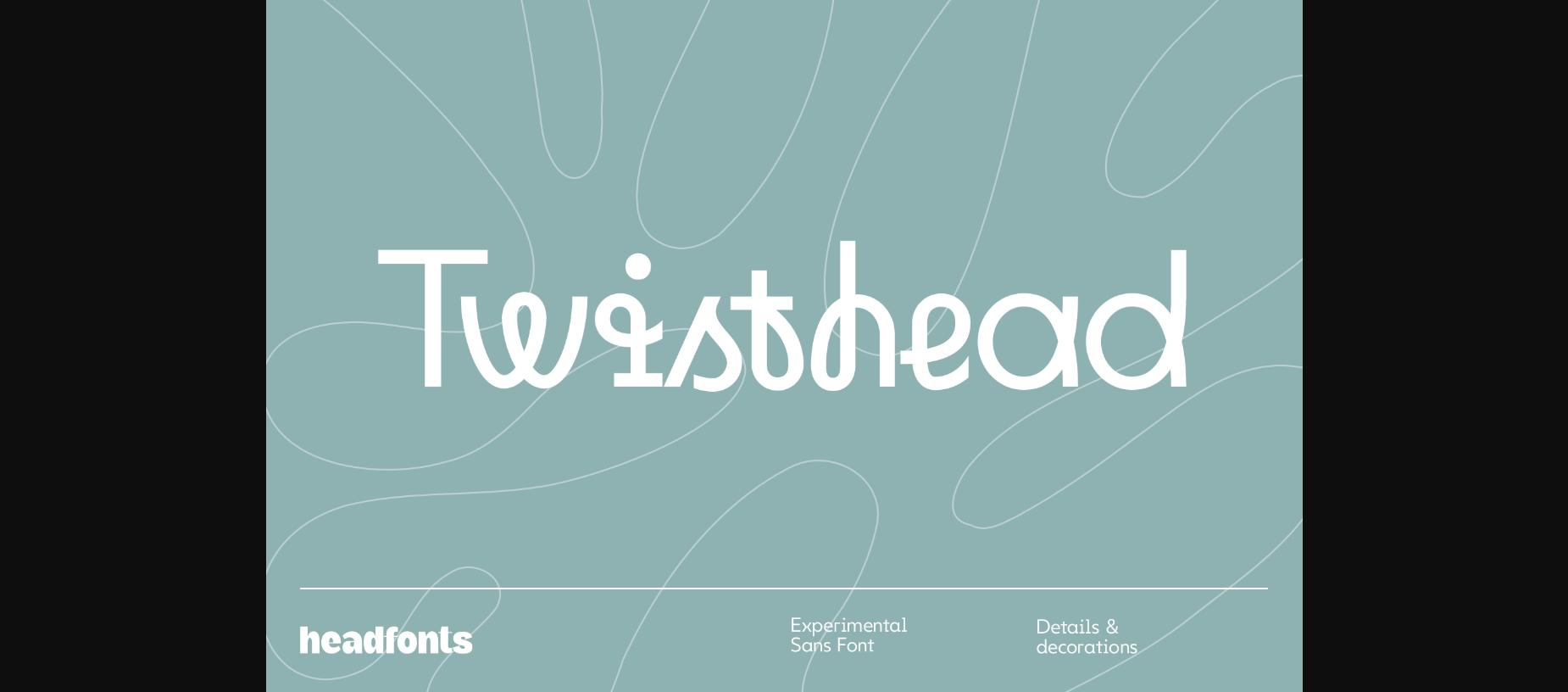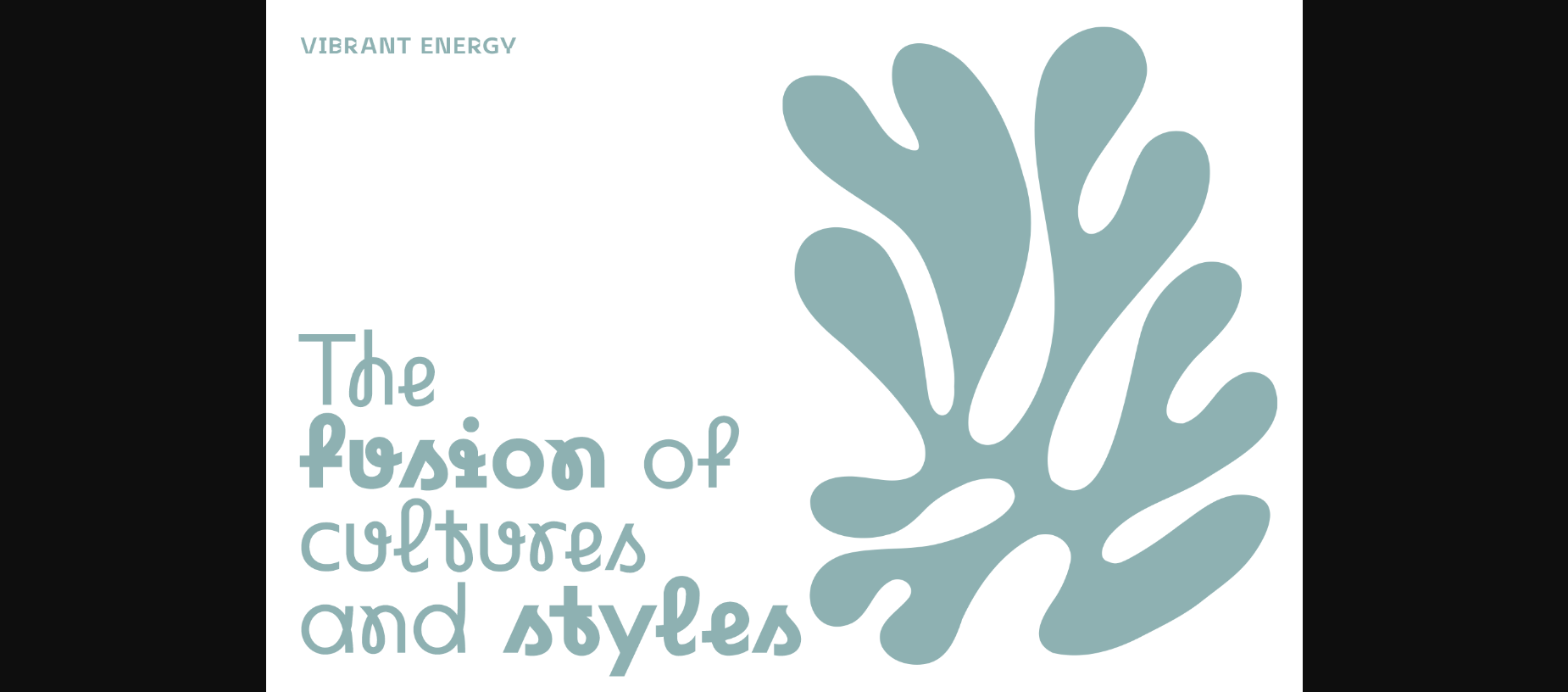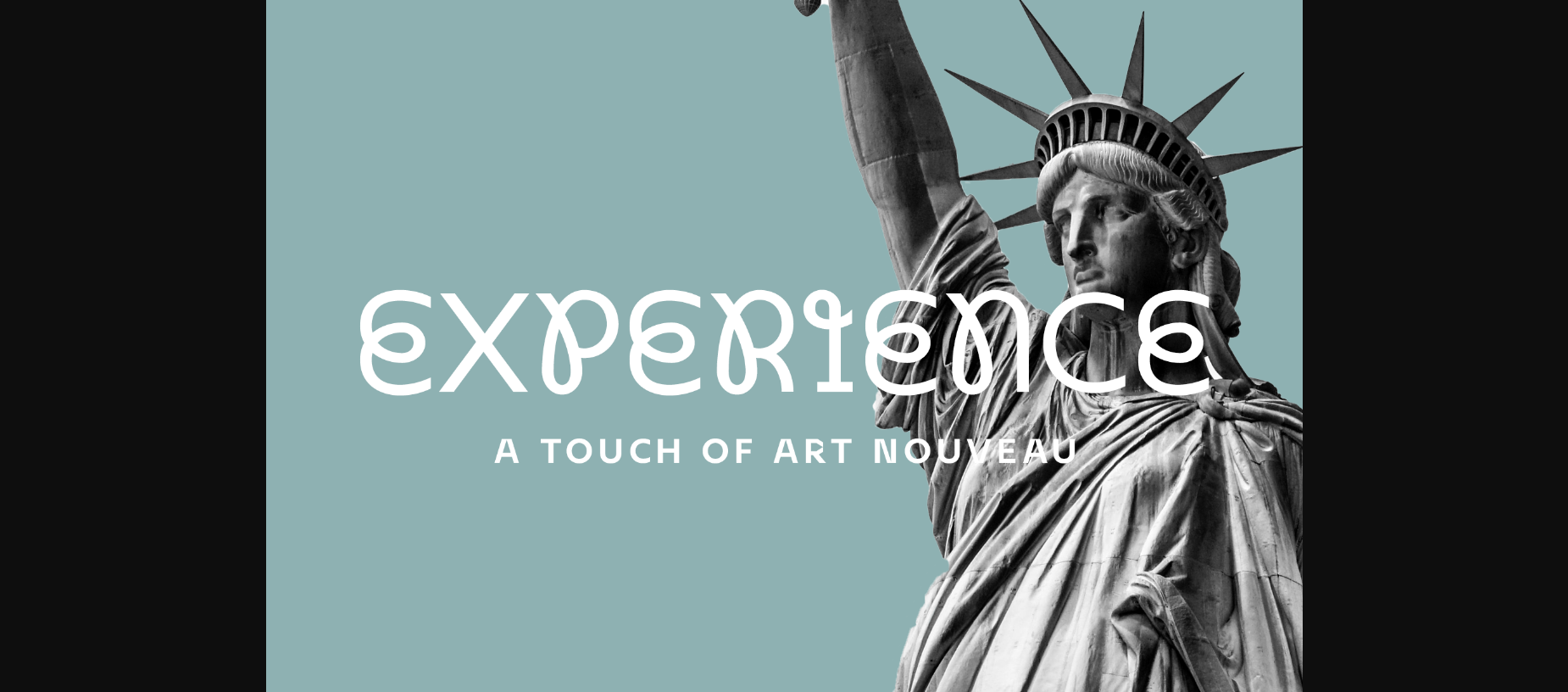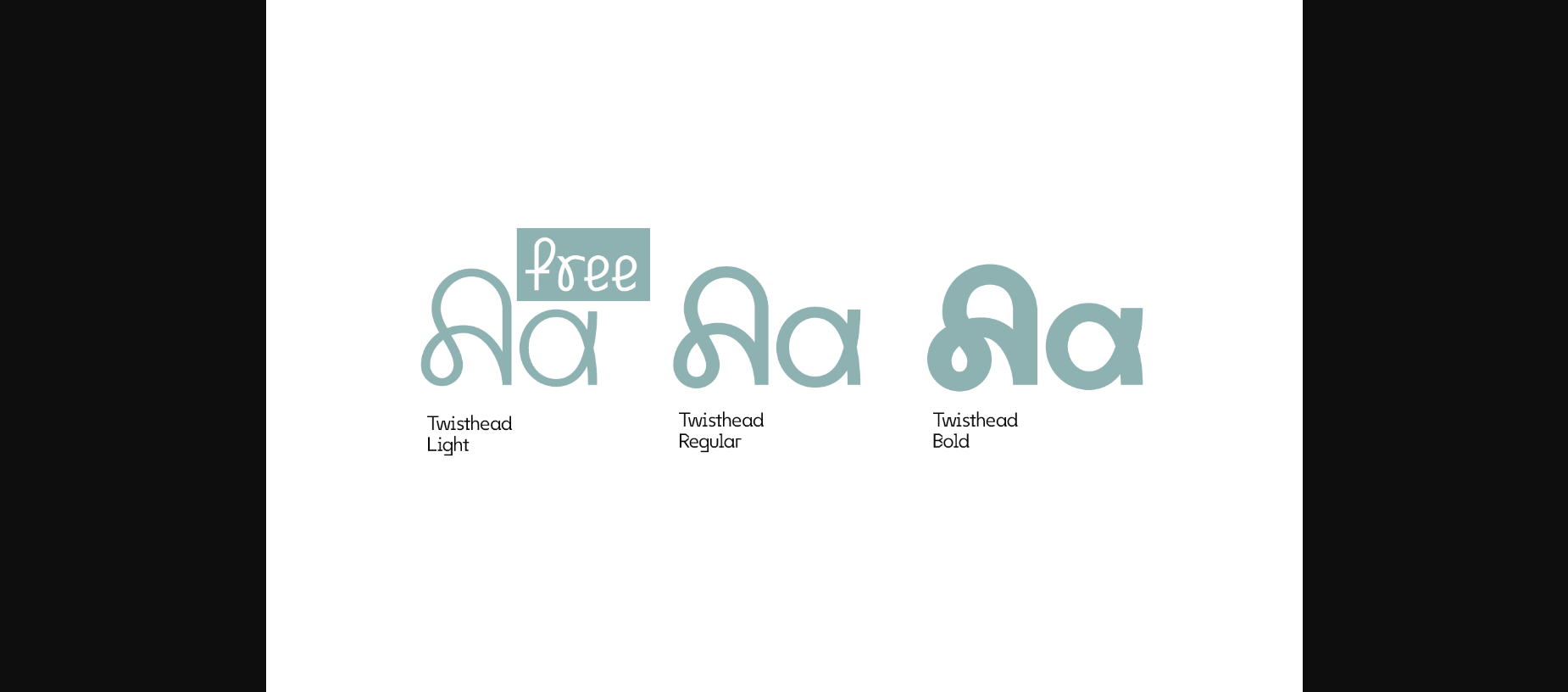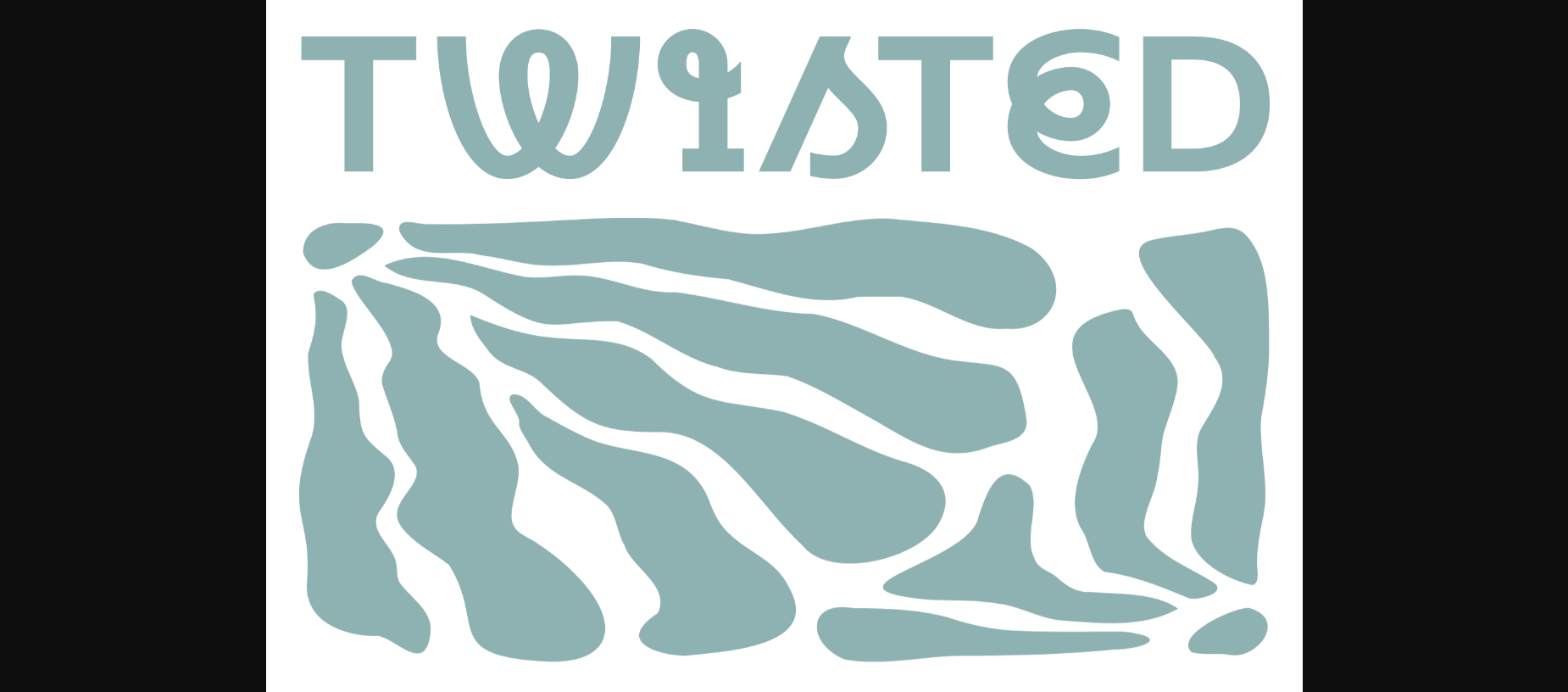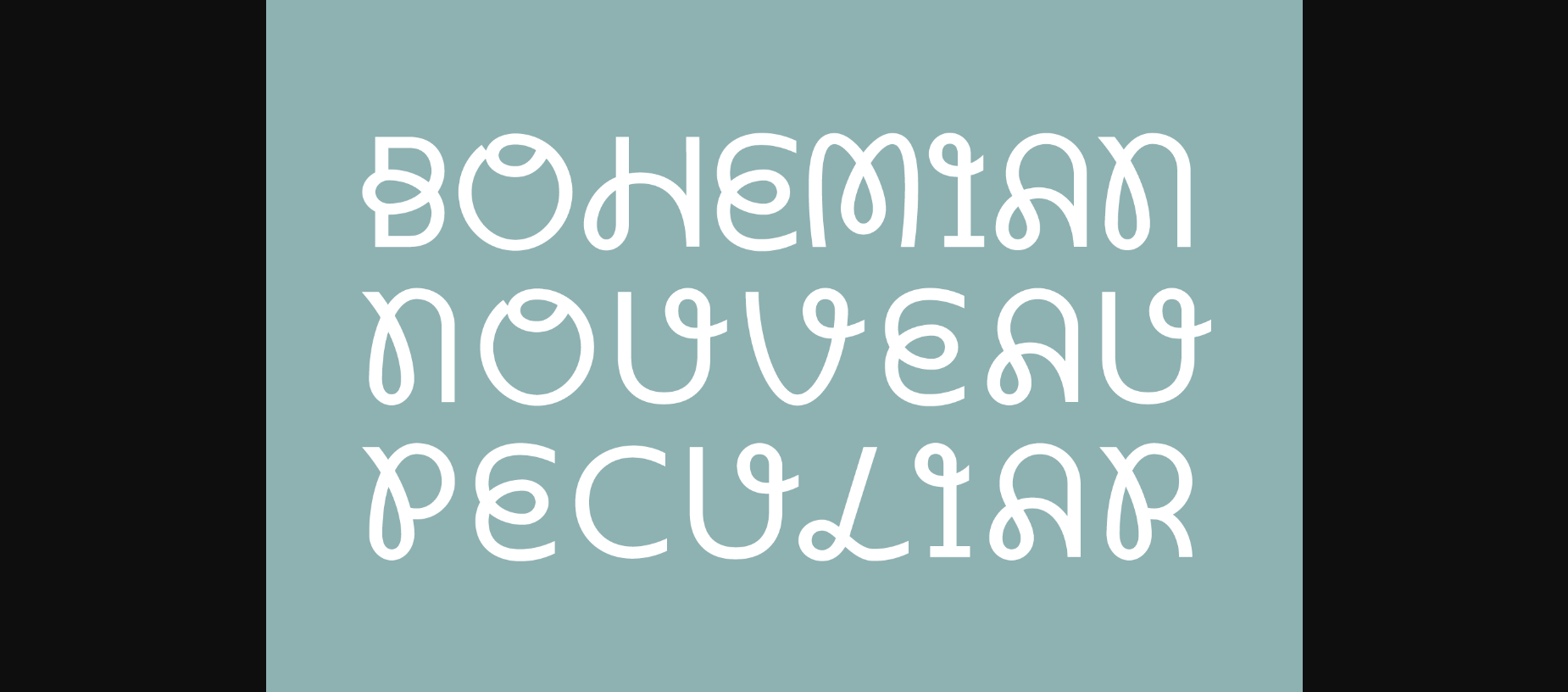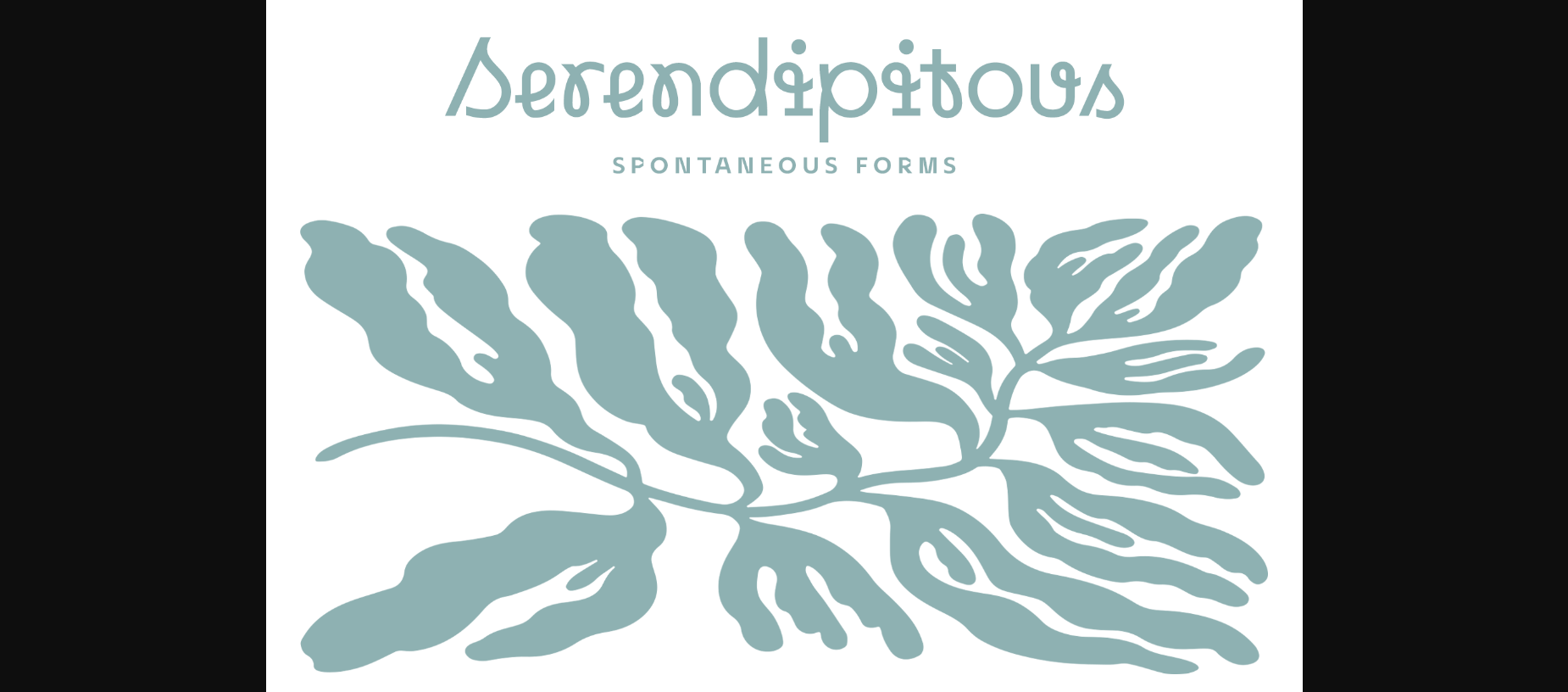
About Twisthead Font
Twisthead is a dynamic sans-serif typeface that will bring your projects to life. Twisthead is a modern font family that comes in three weights – Light, Regular, and Bold. It’s a vibrant font that exudes personality and adds a touch of uniqueness to any project.
With its geometric elements and playful calligraphic curves, this font is versatile and perfect for any eye-catching design.